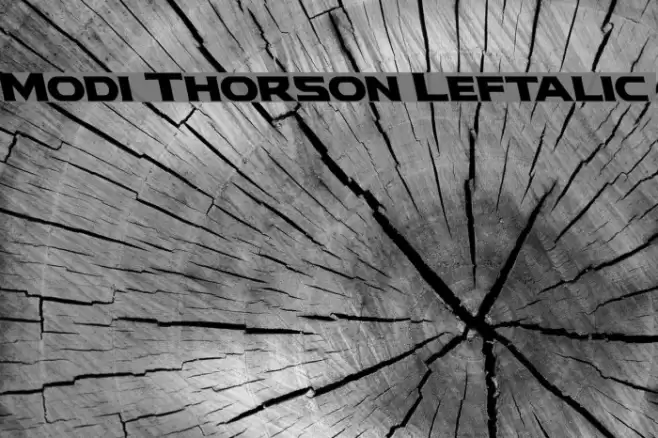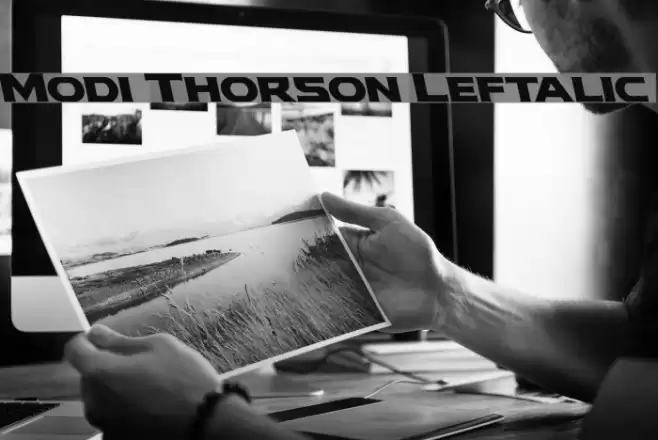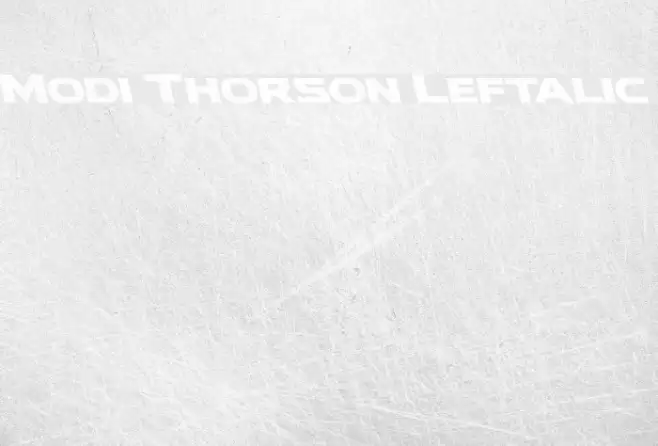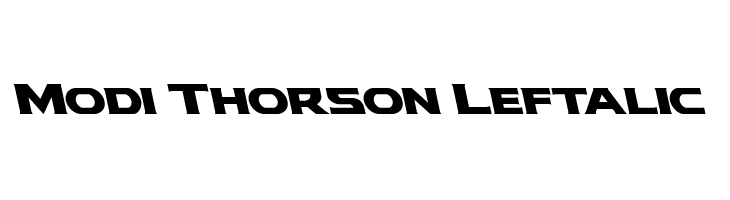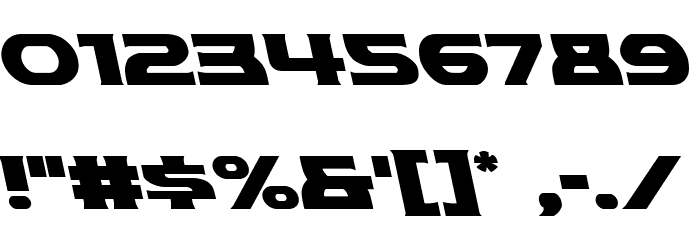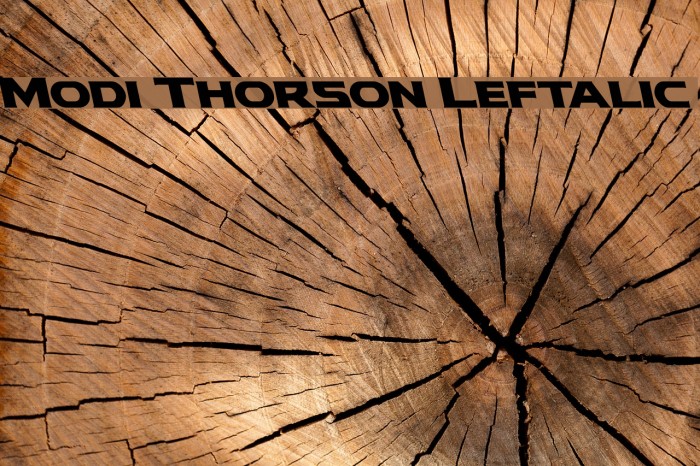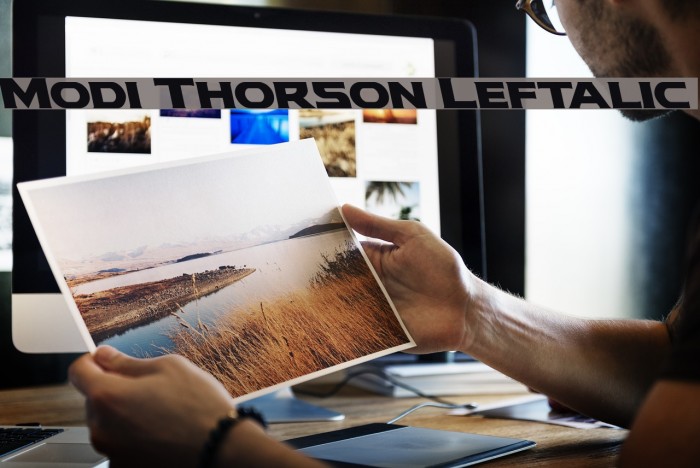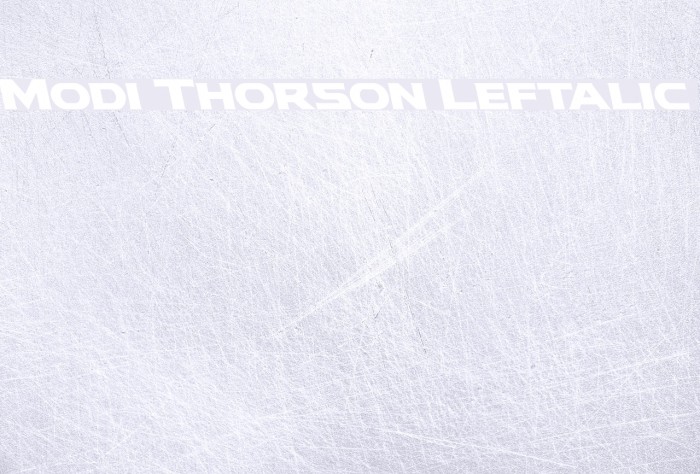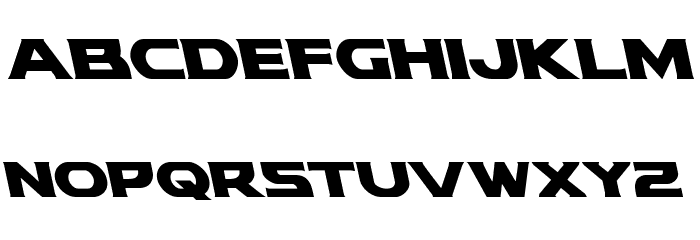
Modi Thorson Leftalic Font
Modi Thorson Leftalic Description
This font features a bold, angular design with a futuristic and dynamic appearance. The characters are slanted, giving a sense of motion and energy. The strokes are thick and consistent, creating a strong visual impact. The geometric shapes and sharp edges contribute to its modern and aggressive style. The font maintains a uniform width across all characters, enhancing its bold and assertive look. The special characters are designed to match the overall aesthetic, with similar angular and bold features.
A bold, angular, and futuristic font with a dynamic slant from Uncategorized fonts.
- Proposed Projects: Ideal for sci-fi themed projects, video game titles, sports branding, and dynamic posters.
- Overall Style: Futuristic